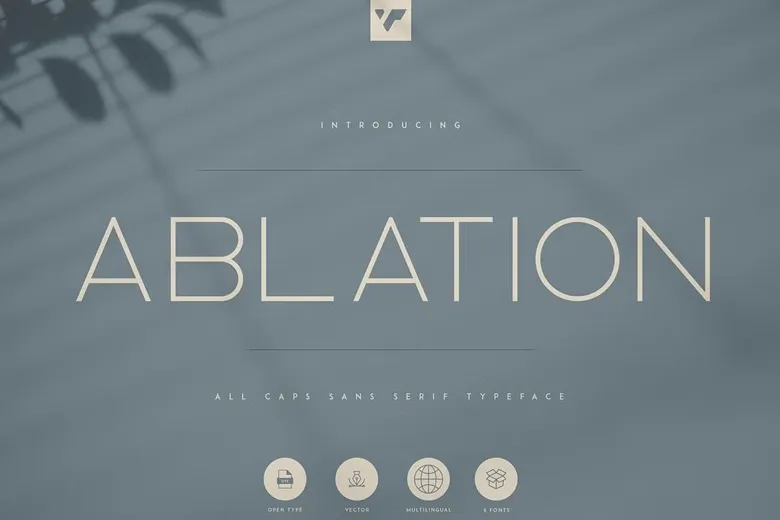
Ablation Font is a all caps sans serif font that comes with 6 weights to add magic to your next project. The languages supported are basic Latin and advanced Latin, basic Cyrillic and advanced Cyrillic. Highly flexible and suitable for use in both big and small sizes for texts.